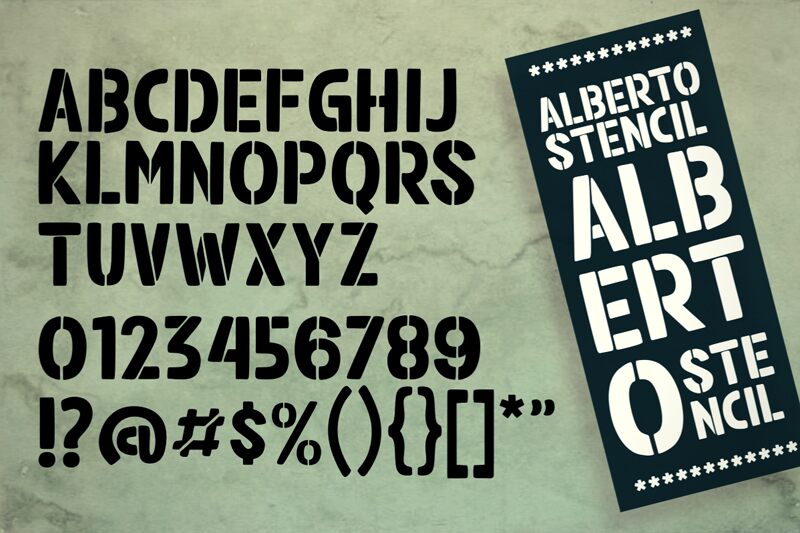
Alberto Stencil
Alberto Stencil, designed by Kurnia Setyadi, is a captivating display font that exudes military vibes with its bold stencil style. This versatile typeface is perfect for projects requiring a touch of strength and authority. Embrace the boldness of Alberto Stencil to create attention-grabbing posters and flyers for military-themed events or design eye-catching logos that demand respect. With its commanding presence, this font is also suitable for branding campaigns targeting adventure enthusiasts or fitness enthusiasts seeking a rugged edge. Make your designs stand out with Alberto Stencil and leave a lasting impression on your audience.